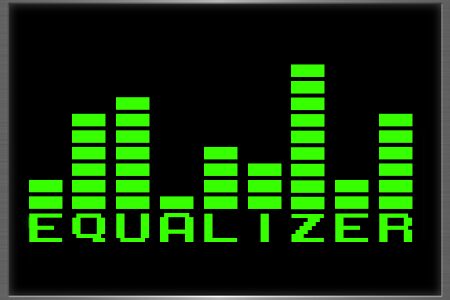
395 Equalizer is a bold, digital display font designed by Anthony Robinson with wide letterforms. Perfect for modern projects that require a strong visual presence, 395 Equalizer can be used to create captivating logos, posters, album covers and more.